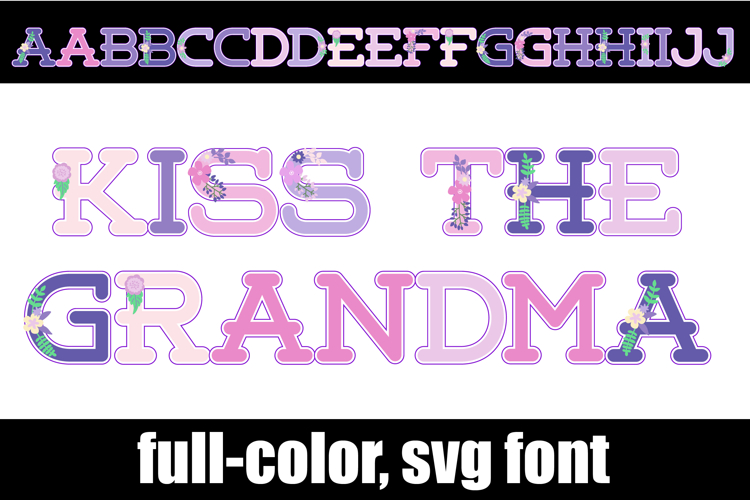
Kiss the Grandma Color Font
This hand-crafted font is a full-color font featuring a purple and pink color palette and florals on each serif letter. There is an alt case of each letter with a different color combination.